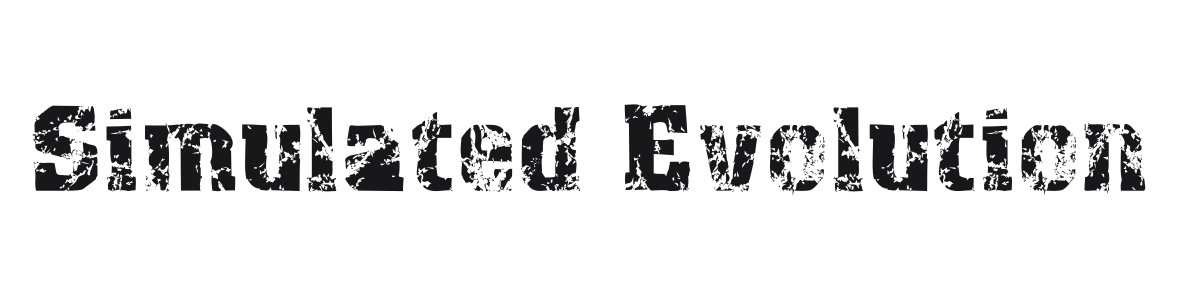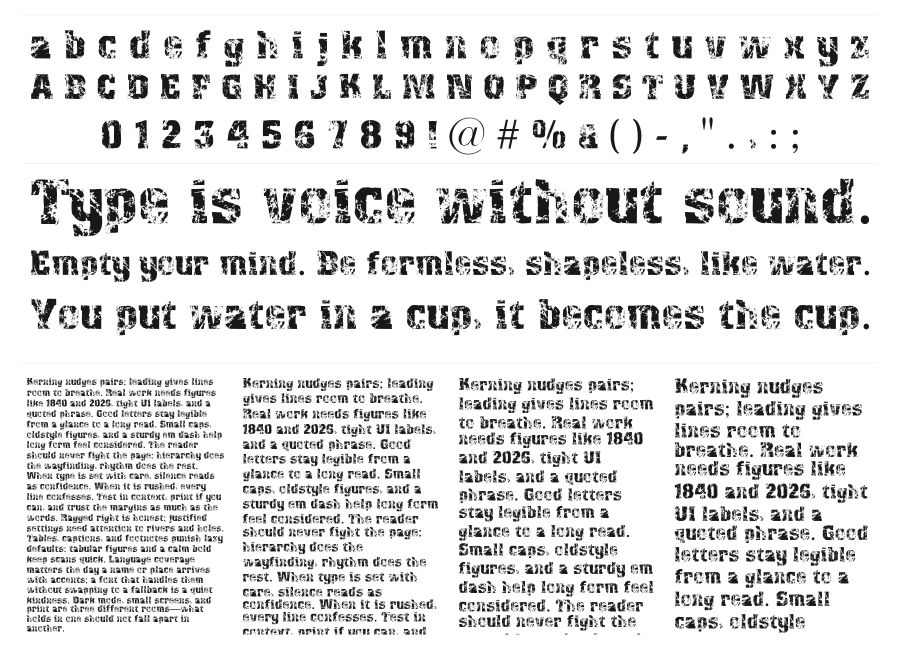
Simulated Evolution
Simulated Evolution is a heavy distressed serif from 1999 with aggressive ink-erosion texturing across every character. The underlying slab-like structure is sturdy and wide, but the grunge overlay fractures edges and fills with grit, giving it a raw, weathered quality. It reads as the kind of type that belongs on concert posters, zine covers, or anywhere that needs weight and attitude.